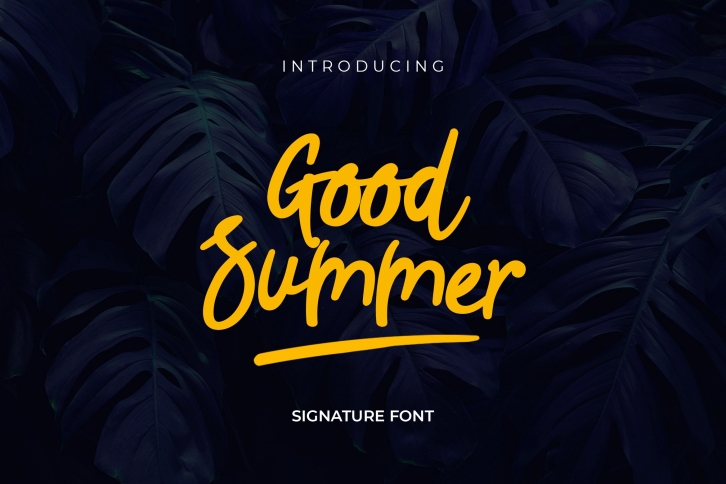
Good Summer is a signature font with which you can achieve a handwritten-type lettering feeling. This signature style is perfect for your modern graphic design needs. This font has a really nice flow so you use it in a large text if you want to give them a touch of personality. It can be used on social media content, for branding or packaging.
Also ideal typeface for organic products branding and packaging. Additionally, you can use Broterside signature romantic vibes for wedding invitation designs. Especially if you are looking for a font for Instagram quote posts or any other social media content, this typeface is for you!